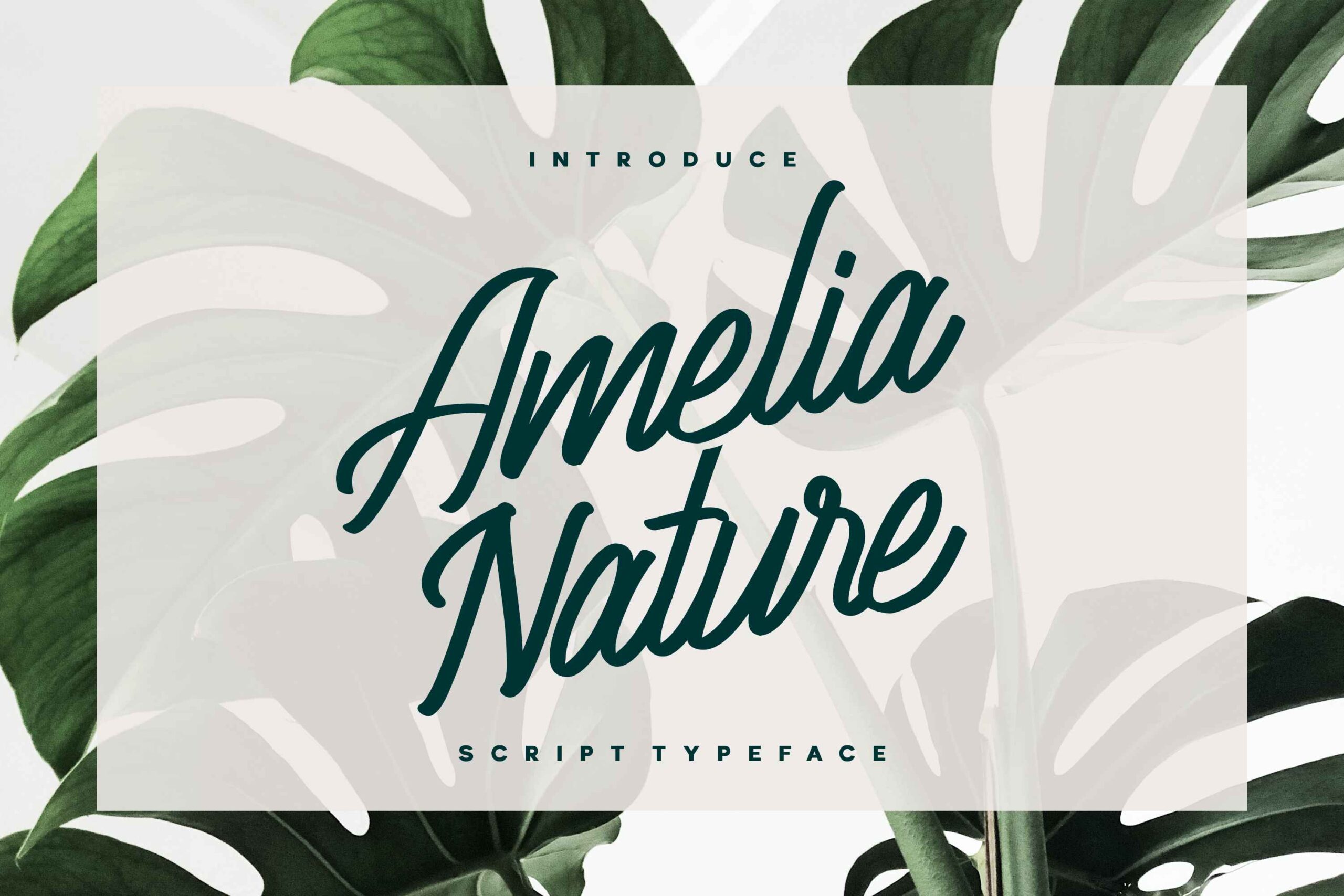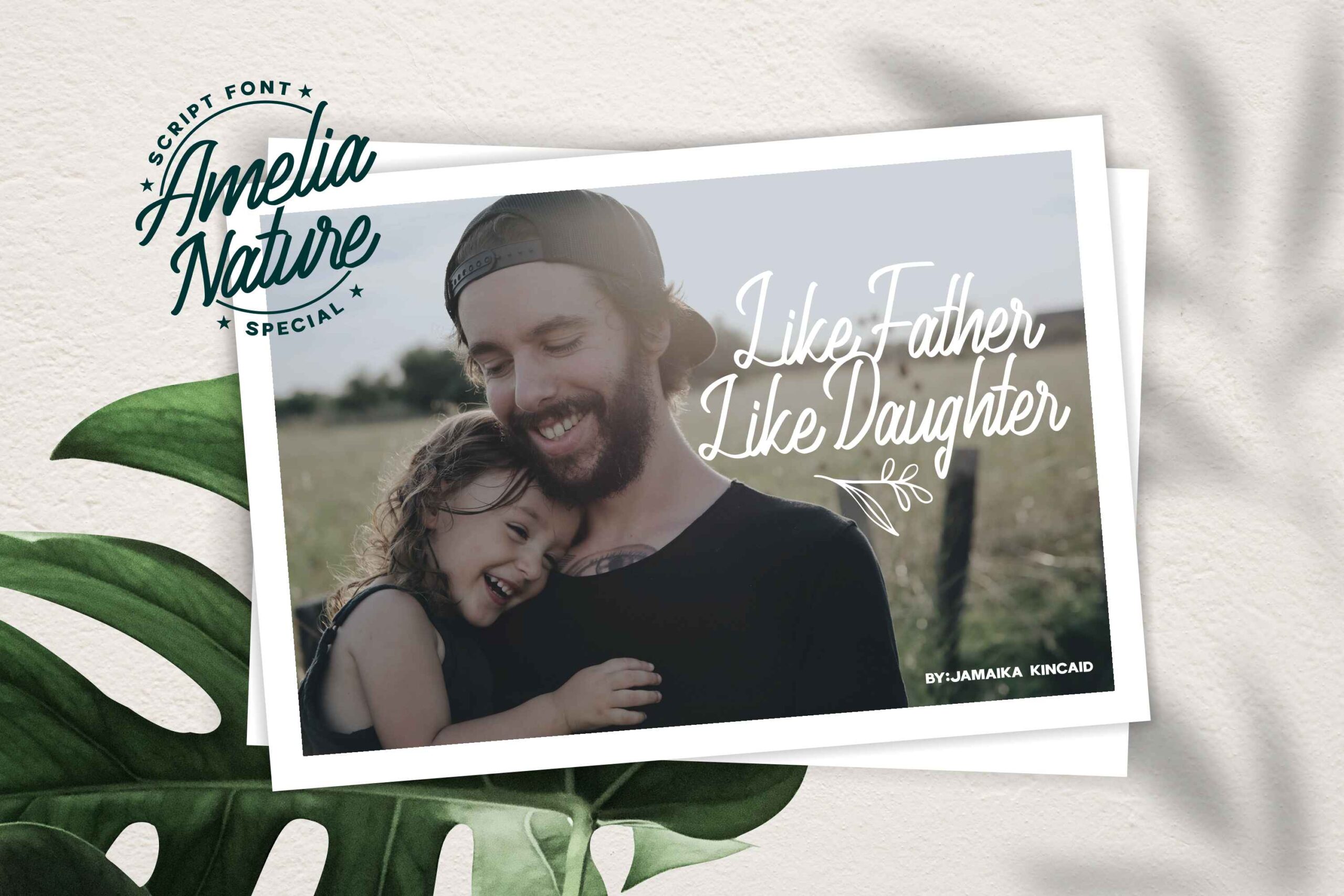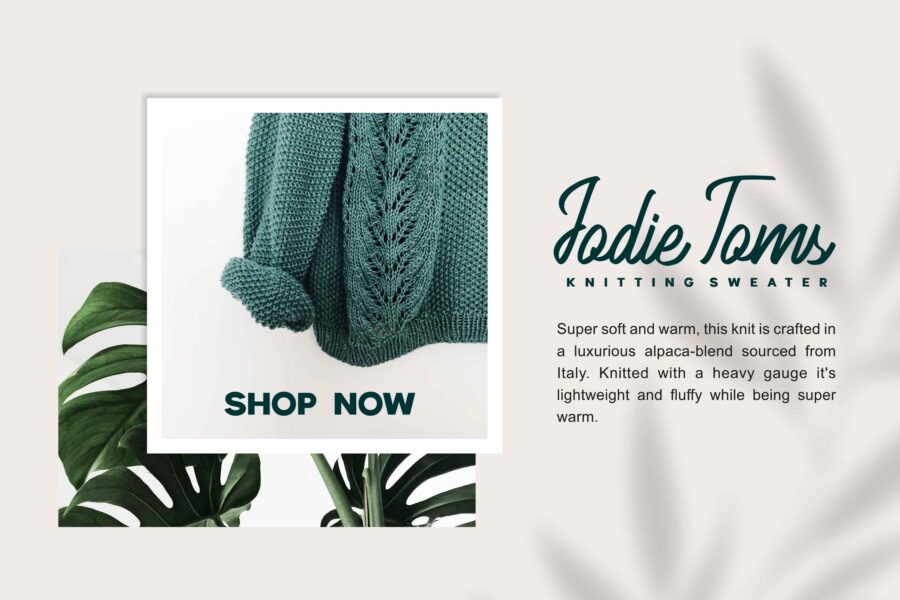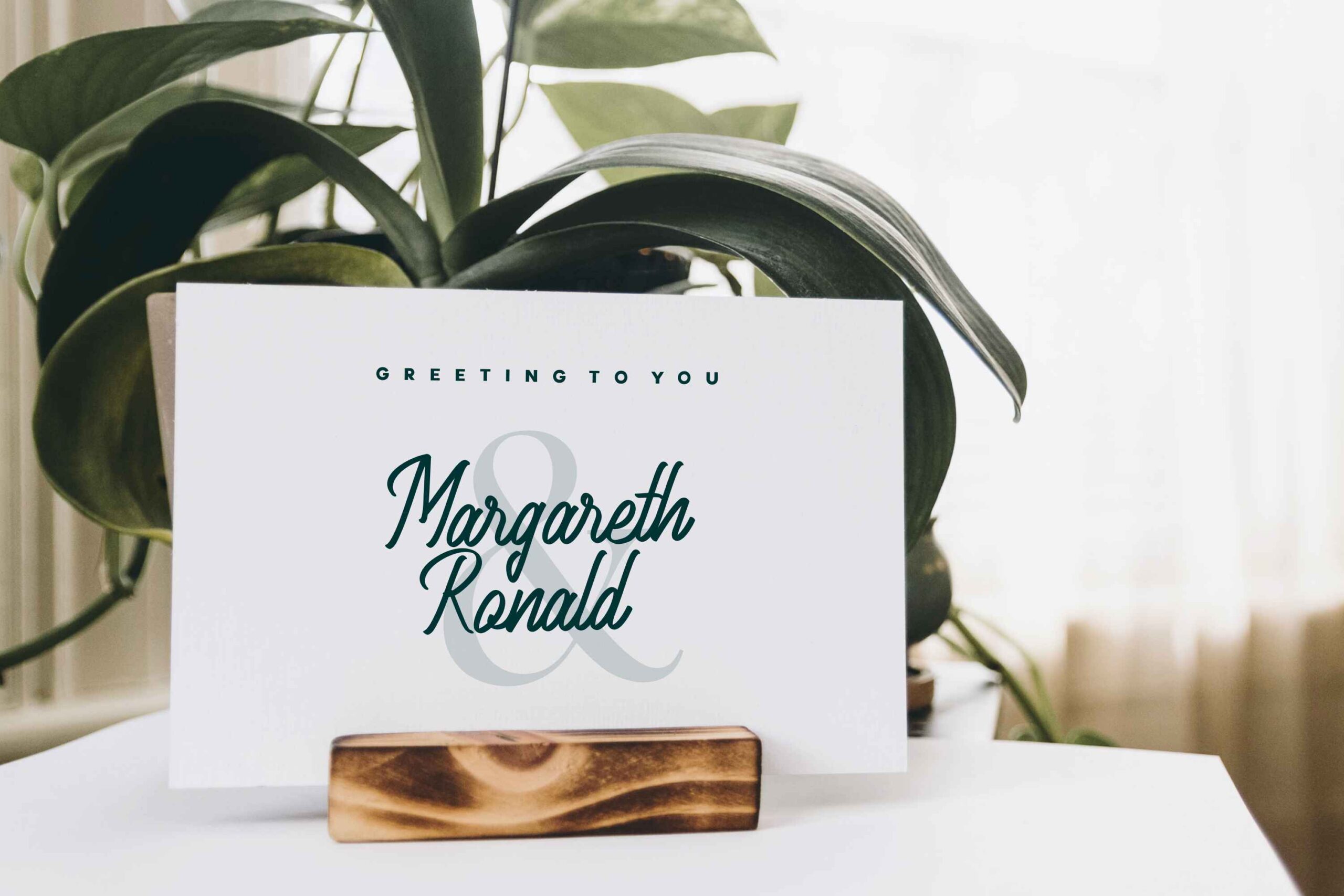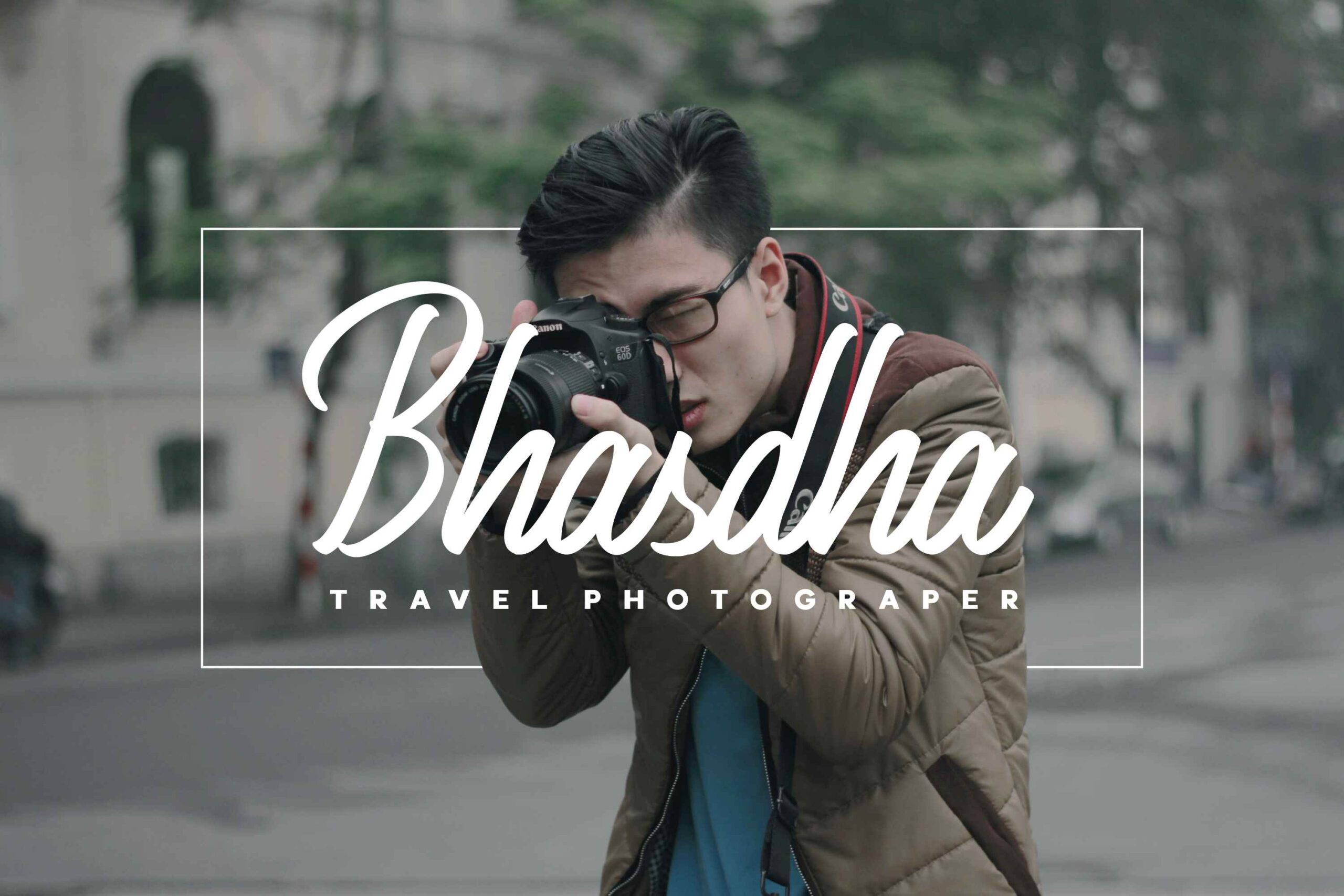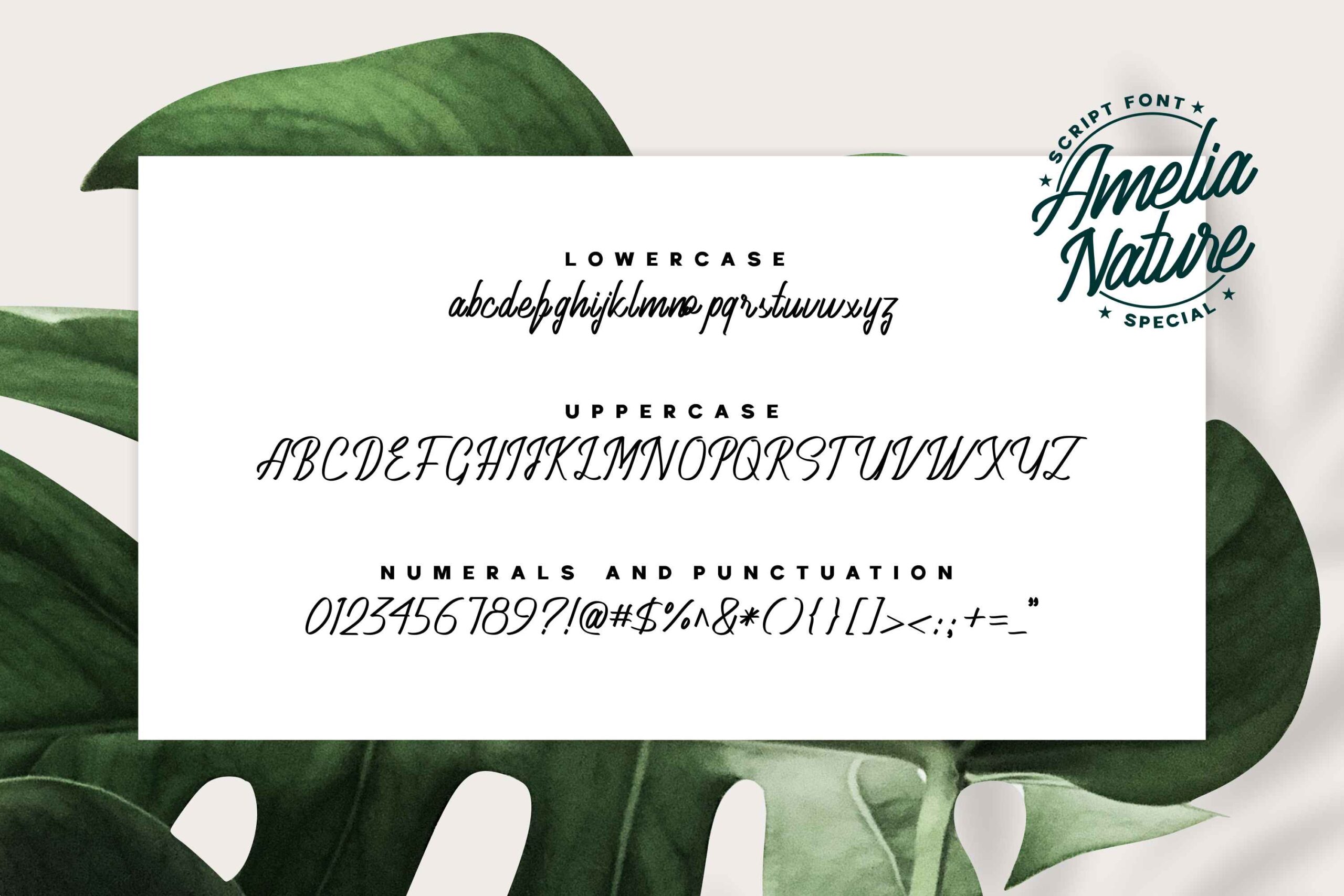
Amelia Nature is a natural handwritten script font that captures the beauty of casual brush strokes with an organic and modern feel. Its smooth flow and stylish curves make it a perfect choice for personal projects, lifestyle branding, photography logos, and social media designs that want to stand out with a fresh, authentic touch.
Equipped with uppercase, lowercase, numerals, and punctuation, Amelia Nature provides versatility for different creative needs. Whether you’re working on greeting cards, fashion labels, wedding invitations, or product packaging, this font adds a warm and friendly vibe, making every design look personal, unique, and memorable.
Amelia Nature
Fype Co.